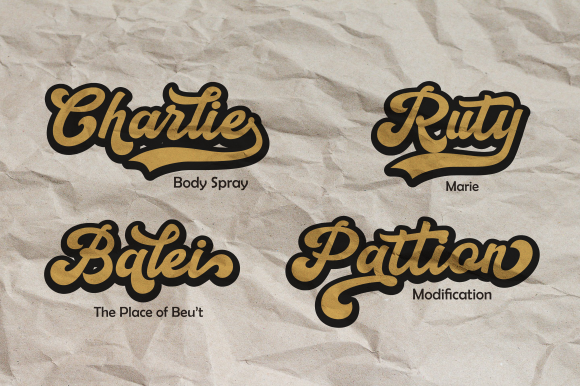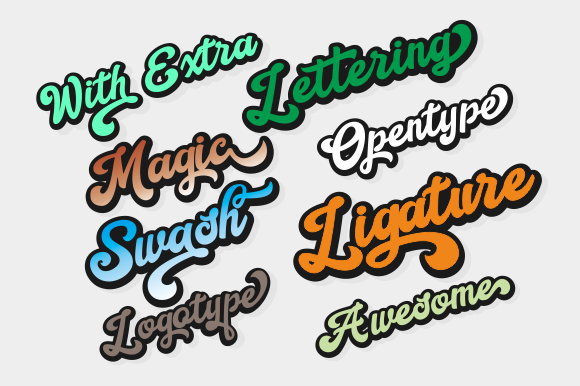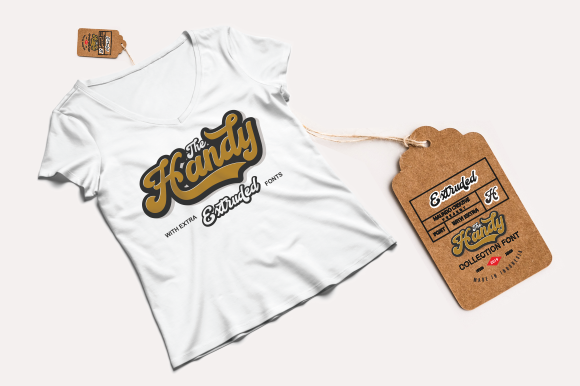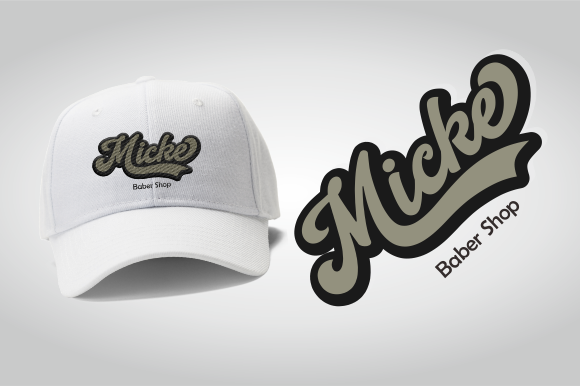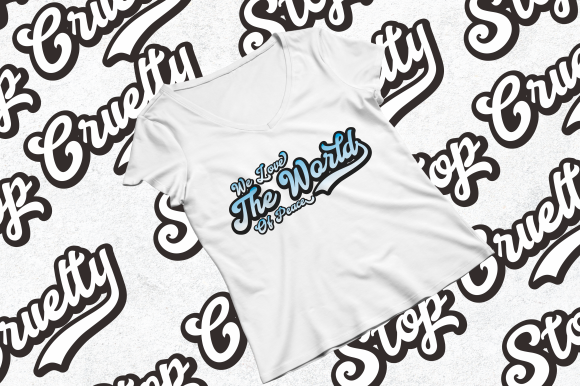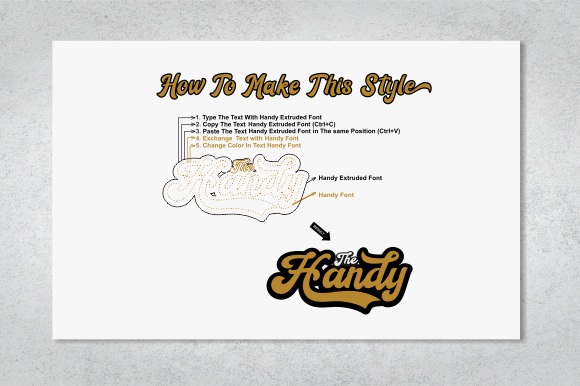
Introduction to Handy Script Font
As a designer, have you ever found yourself staring at a blank canvas, desperate for that perfect font to bring your creative project to life? It’s a moment we’ve all been in – the one where every option seems dull, and you just can’t seem to find that special something that will make your design stand out. Well, we’ve got some exciting news for you! Introducing the Handy Script Font, a beautiful and bold handwritten font that’s about to revolutionize your design game.
This stunning font is not only visually appealing but also offers a high-quality, authentic feel that’s perfect for designers looking to add a charming twist to their projects. Whether you’re working on a logo, a social media campaign, or even a wedding invitation, the Handy Script Font is sure to be a valuable asset in your design arsenal.
Key Features of Handy Script Font
- High-quality design resource for creative projects, ideal for logos, branding, and typography.
- Unique, handwritten style with a touch of elegance, perfect for adding a personal touch to your design.
Honest Review: Handy Script Font
As a designer, I’m always on the lookout for high-quality design resources that can elevate my creative projects. The Handy Script Font is one such resource that has caught my attention.
What works well is the elegant and flowing style of the font, which is perfect for adding a touch of sophistication to my designs. The font is highly customizable, allowing me to adjust the size, color, and spacing to suit my needs. It’s also great for use on digital platforms, thanks to its transparent background, which makes it easy to overlay on images and videos.
Here are some key features of the Handy Script Font that I appreciate:
- High quality and elegant style ✨
- Not suitable for use in small text sizes ⚠️
- May not be as versatile as other script fonts
Overall, I’m impressed with the Handy Script Font and would definitely recommend it to designers looking for a high-quality script font for their creative projects. With its elegant style and high level of customizability, it’s a valuable addition to any design resource library.
The Handy Script Font is a high-quality, free download design resource ideal for creative projects. It features a unique, handwritten style with a transparent background, making it perfect for adding a personal touch to your designs.
The Handy Script Font is perfect for a variety of creative projects, including:
- Blog posts and social media graphics
- Party decorations and signage